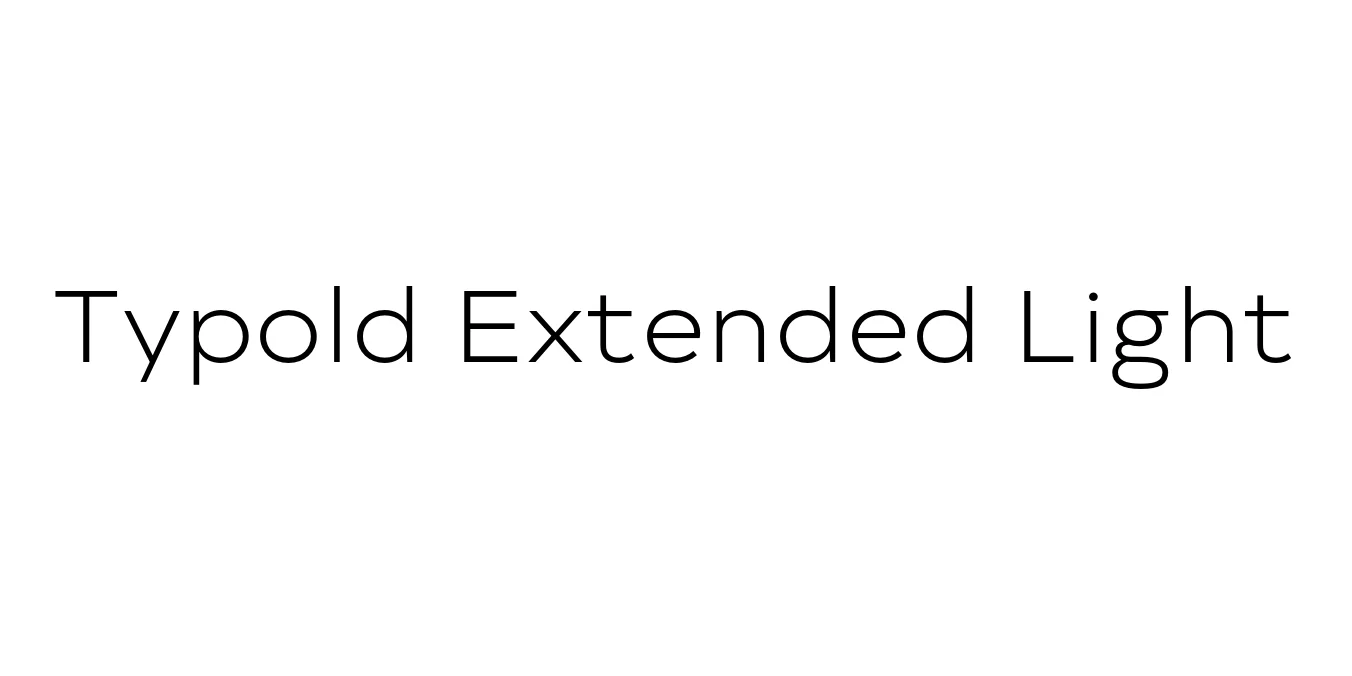
Typold Extended Light
Designed by Jonathan Hill
Typold Extended Light is a sophisticated geometric sans-serif typeface crafted by Jonathan Hill for the renowned foundry, The Northern Block. As an expansion of the original Typold family, this version focuses on horizontal width to provide a more commanding and modern presence. The light weight emphasizes clean, thin strokes and wide apertures, ensuring that the typeface remains legible while exuding an air of elegance and technological precision.
Designed with the digital age in mind, Typold Extended Light bridges the gap between mechanical engineering and human-centric design. Its structural integrity makes it perfect for high-resolution displays and editorial layouts where a sense of space and luxury is required. The typeface reflects a modern aesthetic that is both minimalist and highly functional, making it a staple for designers looking for a high-quality extended font.
Typold Extended Light Best Uses
Ideal for tech startups and luxury brand logos that require a wide, modern footprint.
Perfect for high-impact hero sections and horizontal website headers.
Excellent for fashion magazines and architectural journals requiring a sophisticated, airy feel.